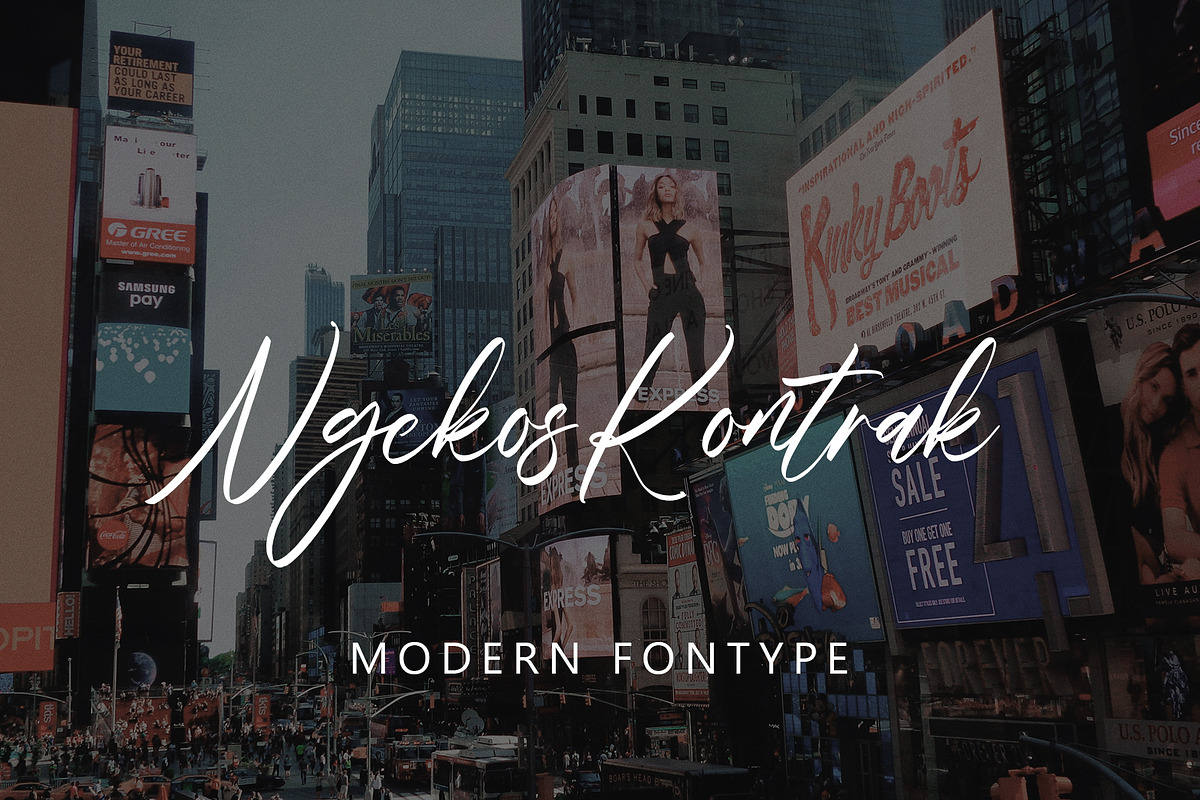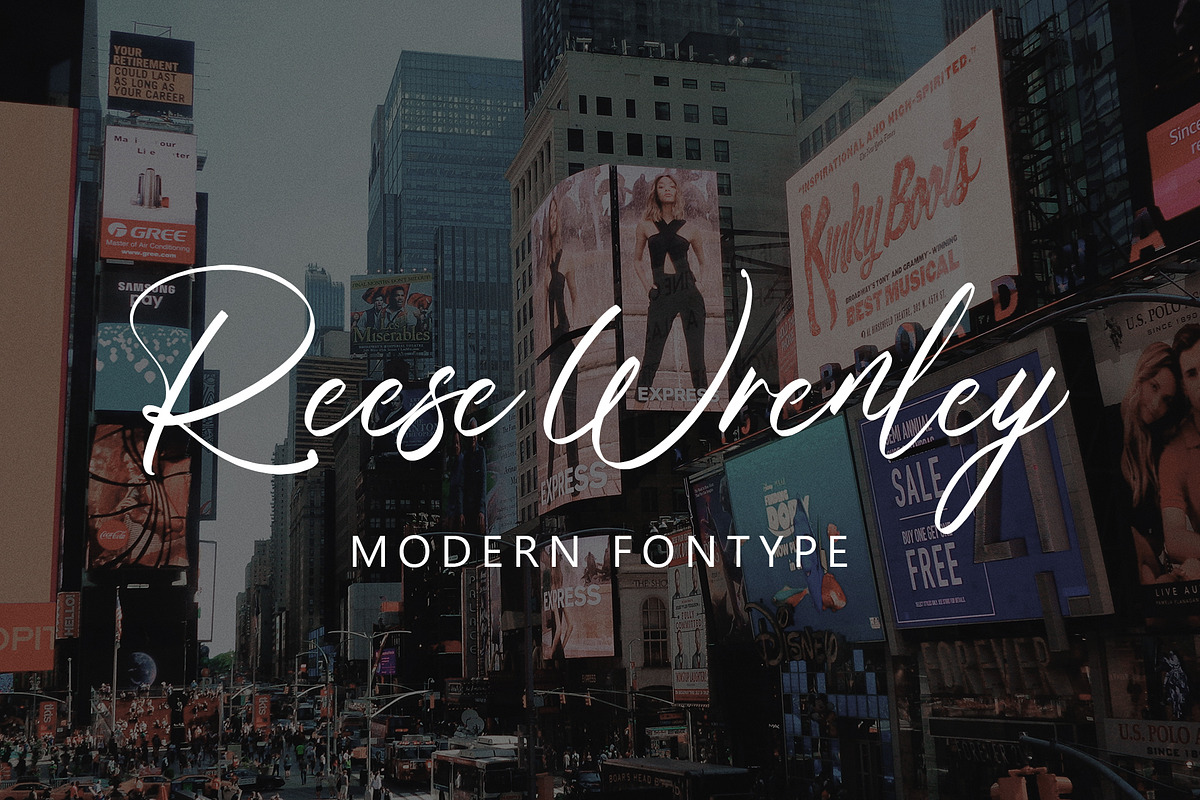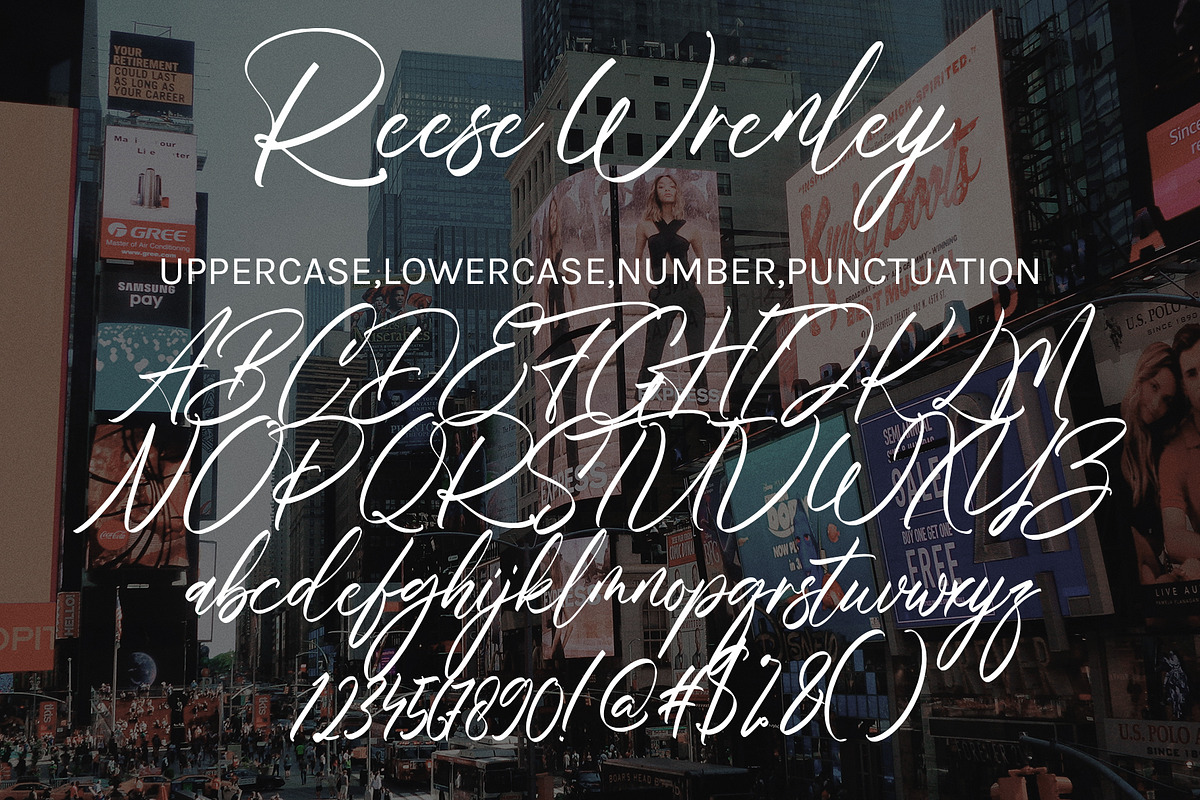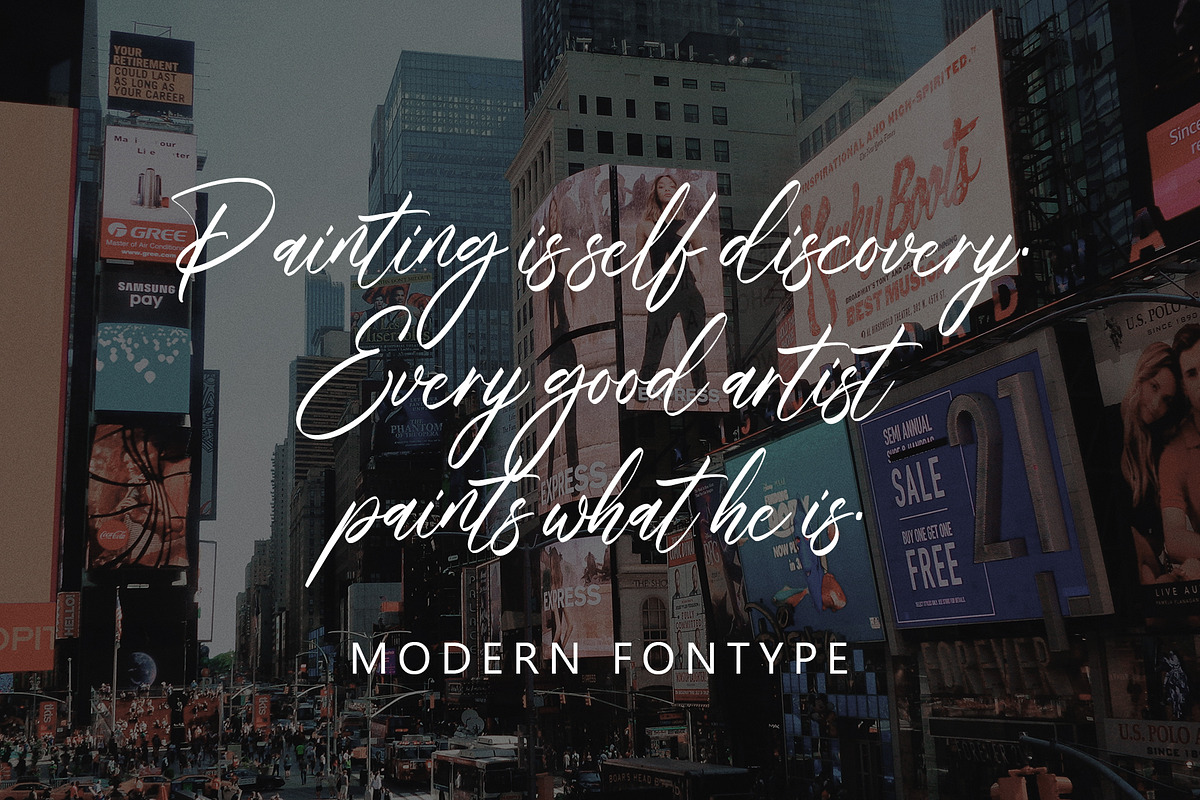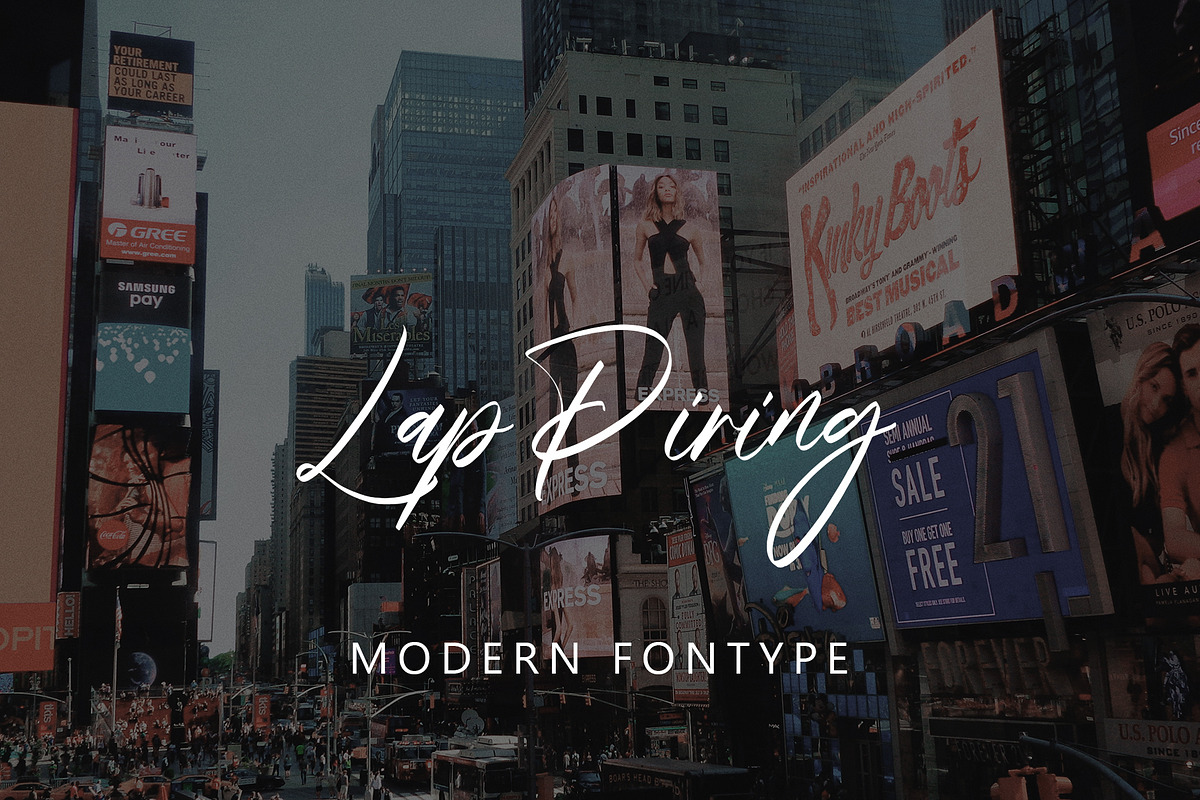
Rese Wrenley
Rese Wrenley with new style, this font will perfect for many different project ex: quotes, logo, blog header, poster, banding, letter, invitation, stationery, etc...